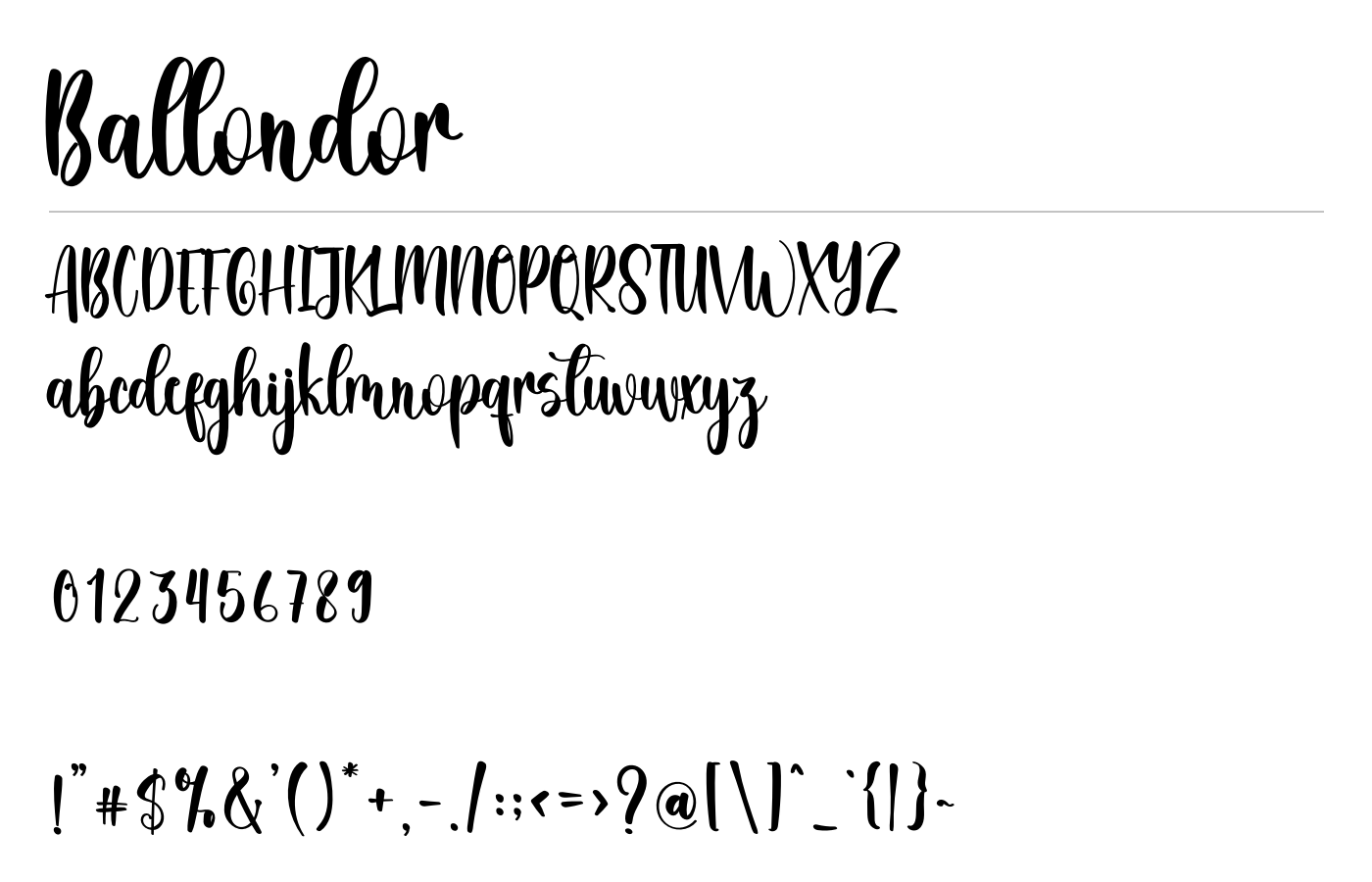
Ballondor is a playful and elegant script font with a handwritten feel, featuring smooth, flowing strokes and a lively, organic texture. Its moderate weight and tall, narrow letterforms make it perfect for adding a friendly yet sophisticated touch to designs, ideal for invitations, branding, and creative headlines. This font shines in contexts where a personal and artistic flair is desired, blending charm with readability.
Ballondor Font
About Ballondor Font